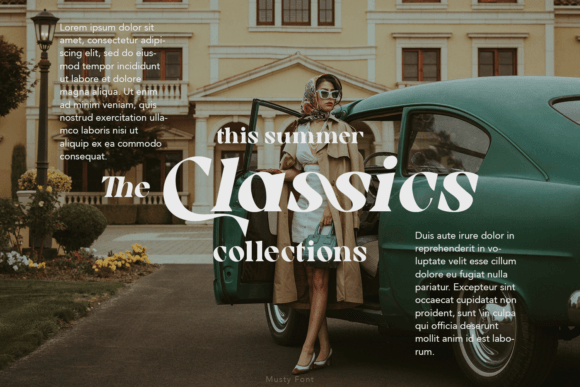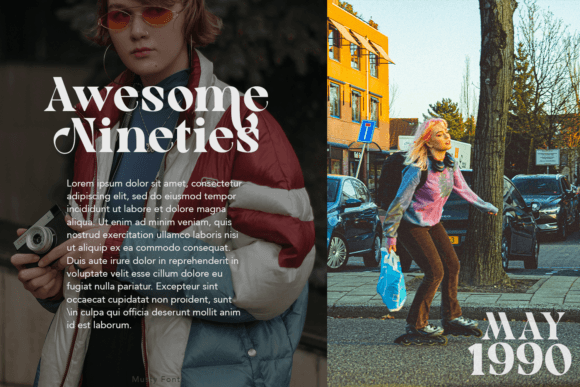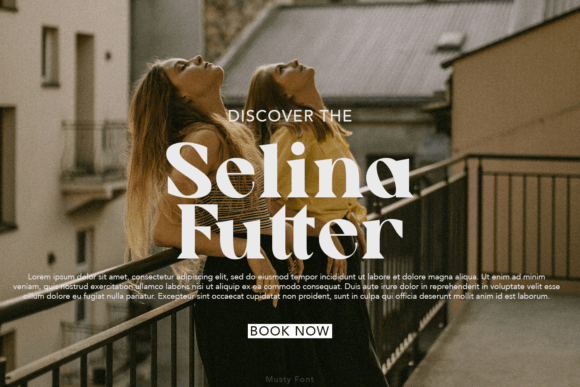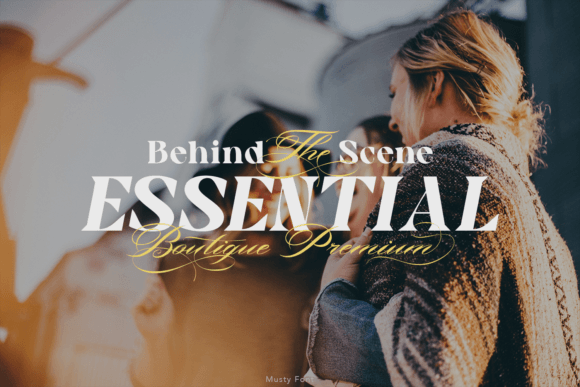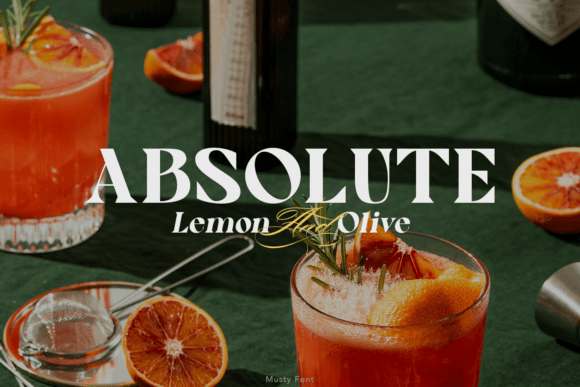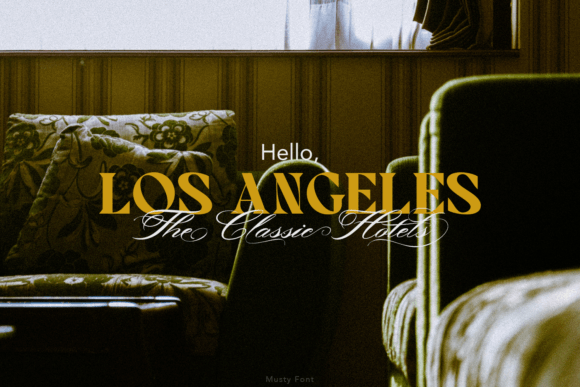
Introduction to Musty Font
Do you remember the first time you stumbled upon the perfect font for a project? The one that made everything fall into place and elevated your design from good to great? For many of us, that moment is a highlight of our creative journey. I still recall the thrill of discovering the Musty Font, a timeless serif font that adds a touch of tradition and elegance to any project.
As a valuable design resource, the Musty Font is a must-have for any designer looking to add a high-quality, classic feel to their work. Its clear and expressive shapes make it perfect for a wide range of creative projects, from elegant invitations to sophisticated websites. And the best part? It’s available for free download, making it an accessible design tool for designers of all levels.
Whether you’re working on a design project with a transparent background or simply want to add a touch of sophistication to your next creative endeavor, the Musty Font is an excellent choice.
Key Features of Musty Font
- Unique, high-quality font design perfect for creative projects
- Transparent background, allowing for seamless integration with any background image or color
- Font size: scalable, allowing for easy resizing to suit various design needs
- Resolution: high-resolution, suitable for printing and digital use
- Distinctive, vintage-inspired aesthetic, making it perfect for retro-themed projects or designs requiring a touch of nostalgia
Honest Review: Musty Font
I recently had the chance to work with the Musty Font, and I must say it was a unique experience. As a designer, I’m always on the lookout for high-quality design resources that can elevate my creative projects. The Musty Font definitely delivered in that regard.
What works well is its distinctive aesthetic, which adds a touch of sophistication to any design. The font’s versatility makes it suitable for a wide range of creative projects, from elegant invitations to edgy advertisements. I particularly liked its transparent background feature, which allows for seamless integration with other design elements.
⚠️ However, I did encounter some limitations while working with the font. For instance, the font’s compatibility with certain software was a bit of an issue. Additionally, the font’s limited character set made it difficult to use in projects that required extensive text editing.
Overall, the Musty Font is a solid choice for designers who want to add a touch of elegance to their projects. While it has its limitations, its unique aesthetic and free download option make it a worthwhile design resource to consider.
- Unique aesthetic
How to Use Musty Font
Tips for Getting the Most Out of Musty Font
To get the most out of Musty Font, try combining it with other design elements to create a unique and eye-catching look. You can also experiment with different font sizes and colors to find the perfect combination.
Musty Font is perfect for a variety of designs, including:
– Social media posts
– Flyers and brochures
– Presentations and documents
– Branding and logo designs
– Creative projects and art